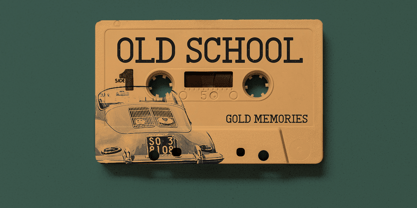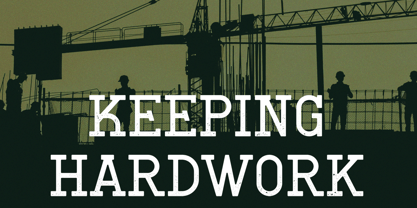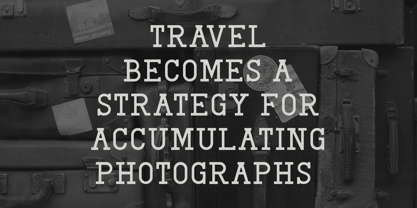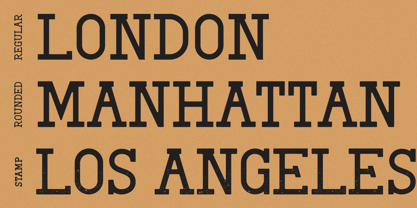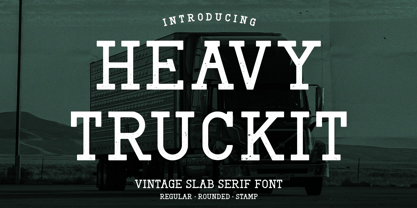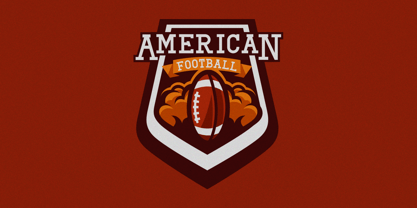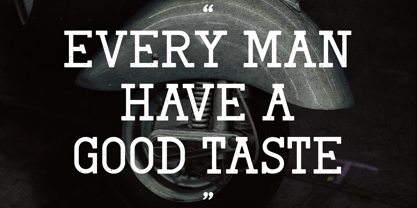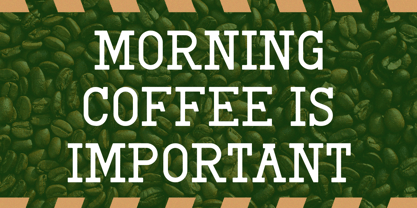
Heavy Truckit
The Heavy Truckit Font Family was designed by Muhammad Hidayat and published by AQR Studio. Heavy Truckit contains 3 styles and family package options. More about this family
Heavy Truckit – Slab Serif Font is a monoline slab serif typeface inspired by retro and vintage design styles. It comes in three styles—Regular, Rounded, and Stamp—and includes a basic alphabet with ligatures and alternates to support creative flexibility.
Heavy Truckit – Slab Serif Font works well for packaging, print materials, logos, and a variety of design projects where bold and timeless typography is needed. Heavy Truckit brings a strong, adaptable look that suits both classic and modern applications.